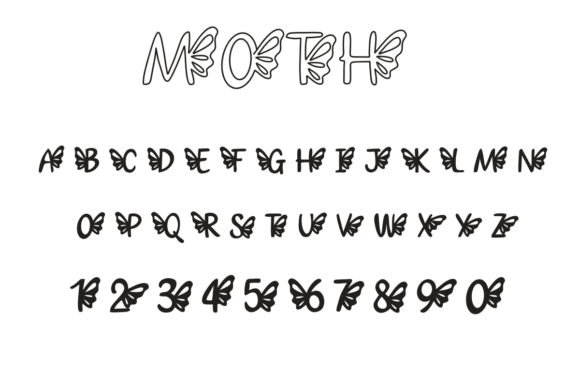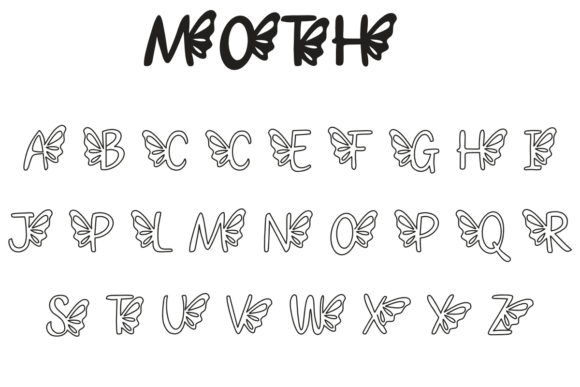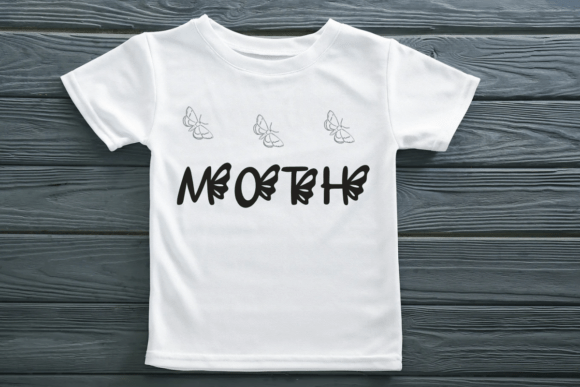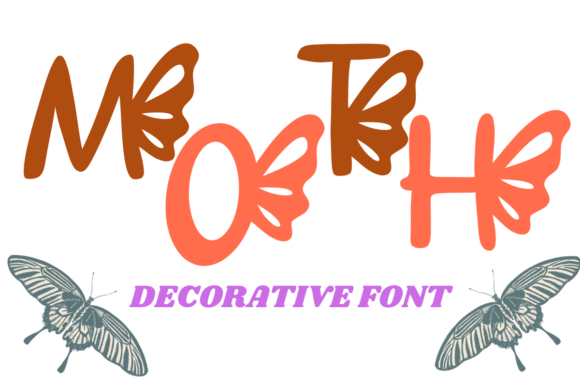
Introduction to Moth Font
Moth β€” Decorative Winged Display Typeface Let your lettering take flight with Moth , a playful decorative typeface where strokes bloom into delicate wing shapes.
Soft curves, bold silhouettes, and whimsical terminals make this a perfect statement font for nature-inspired logos, product labels, posters, stickers, children’s projects, party invites, and eye-catching social posts Pair it with a clean sans serif for captions and let Moth carry the headline.